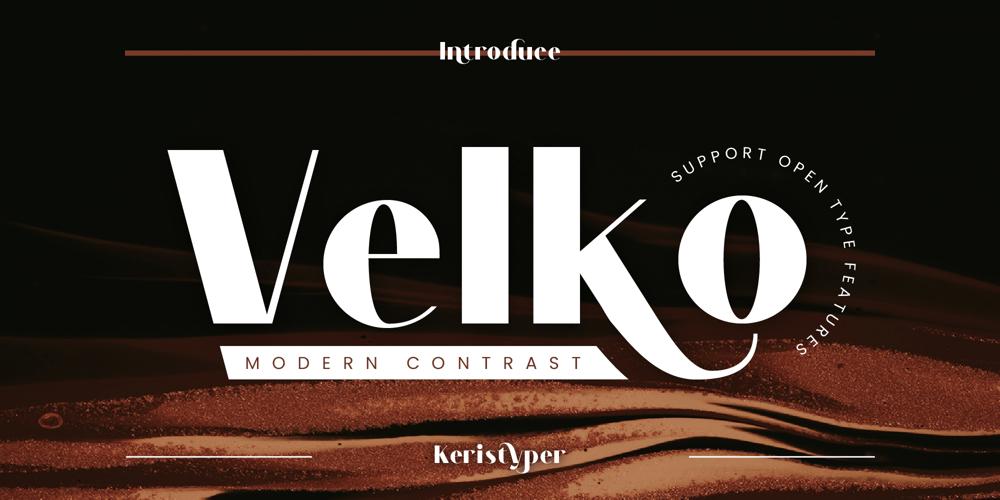
Velko
Velko font
Velko Font Family was designed by Tezar Tantular and published by Keristyper Studio. Velko contains 1 styles and family package options. Volka is a modern sans serif font with clean and minimal lines with high contrast looks. This font is good for logo design, Social media, Movie Titles, Books Titles, short text even long text letters, and good for your secondary text font with script, sans or serif.**Featured:*** Standard Uppercase & Lowercase* Numeral & Punctuation* Multilingual : ä ö ü Ä Ö Ü ß ¿ ¡* Alternate & Ligature* PUA encodedWe recommend programs that support the OpenType feature and the Glyphs panel such as Adobe applications or Corel Draw. so you can use all the variations of the glyphs.Hope you enjoy our fonts!